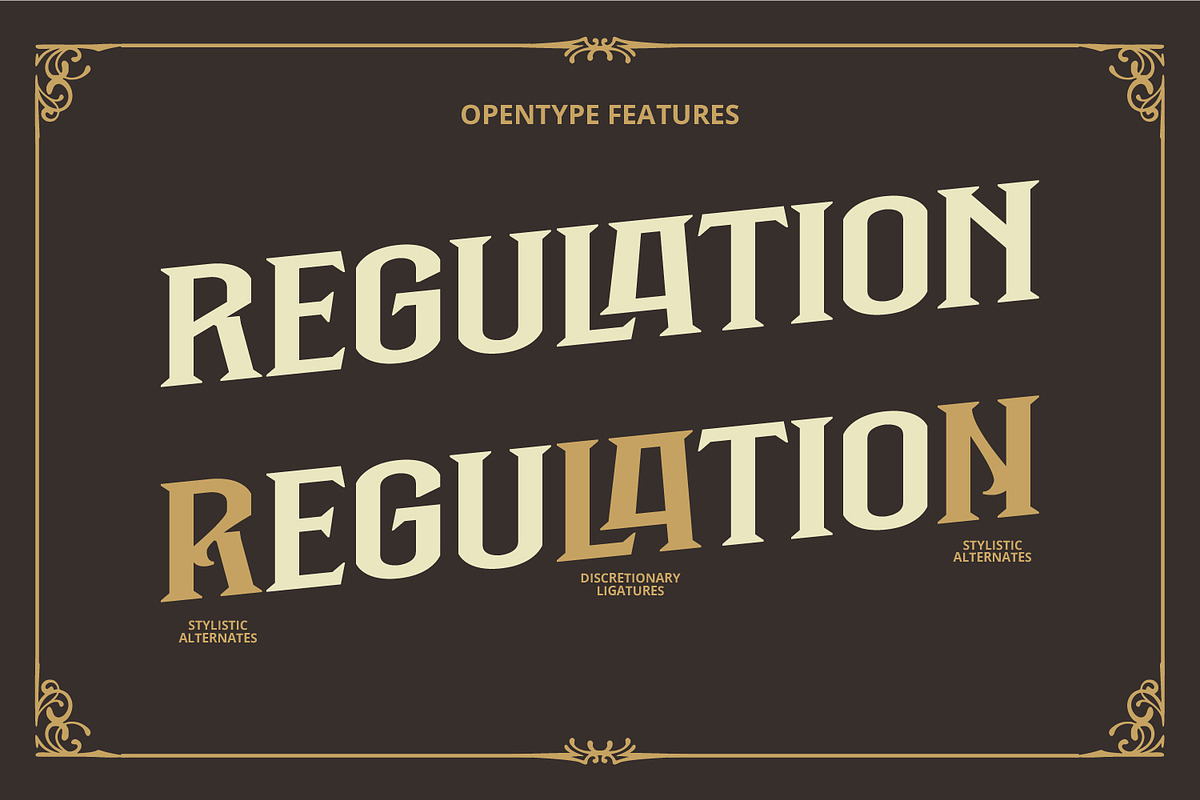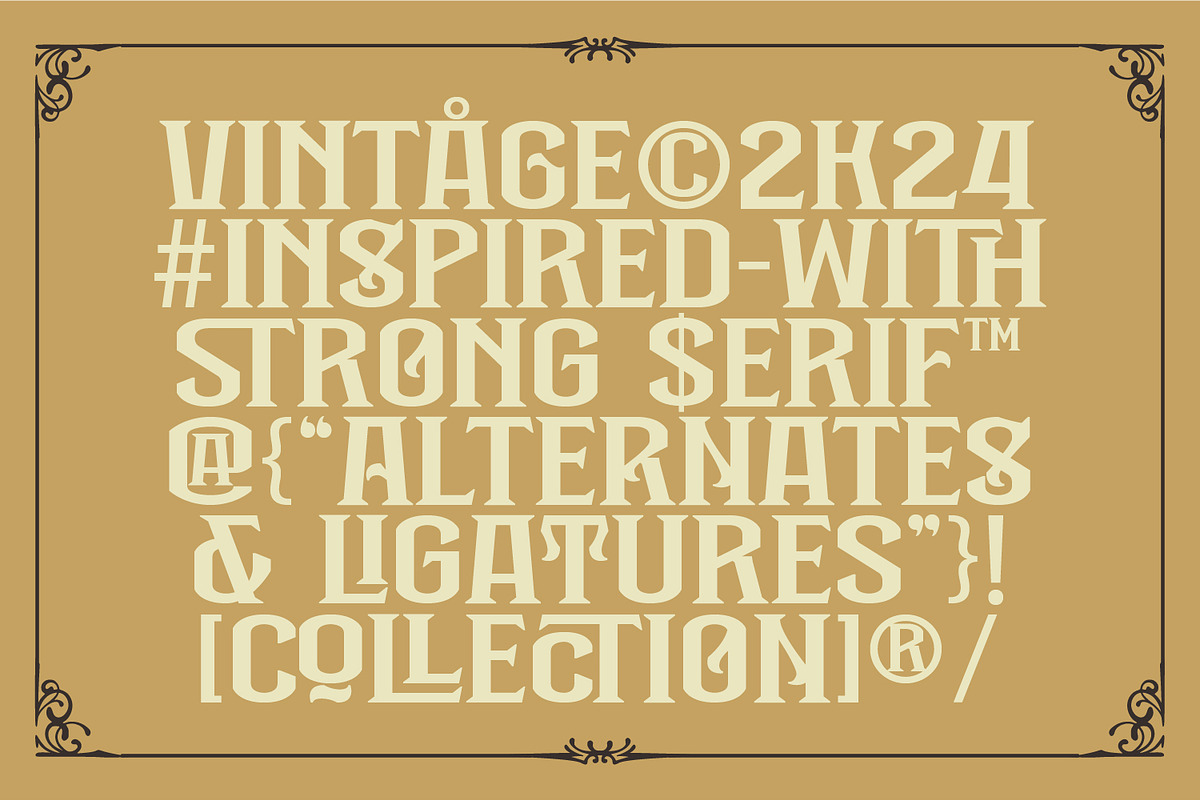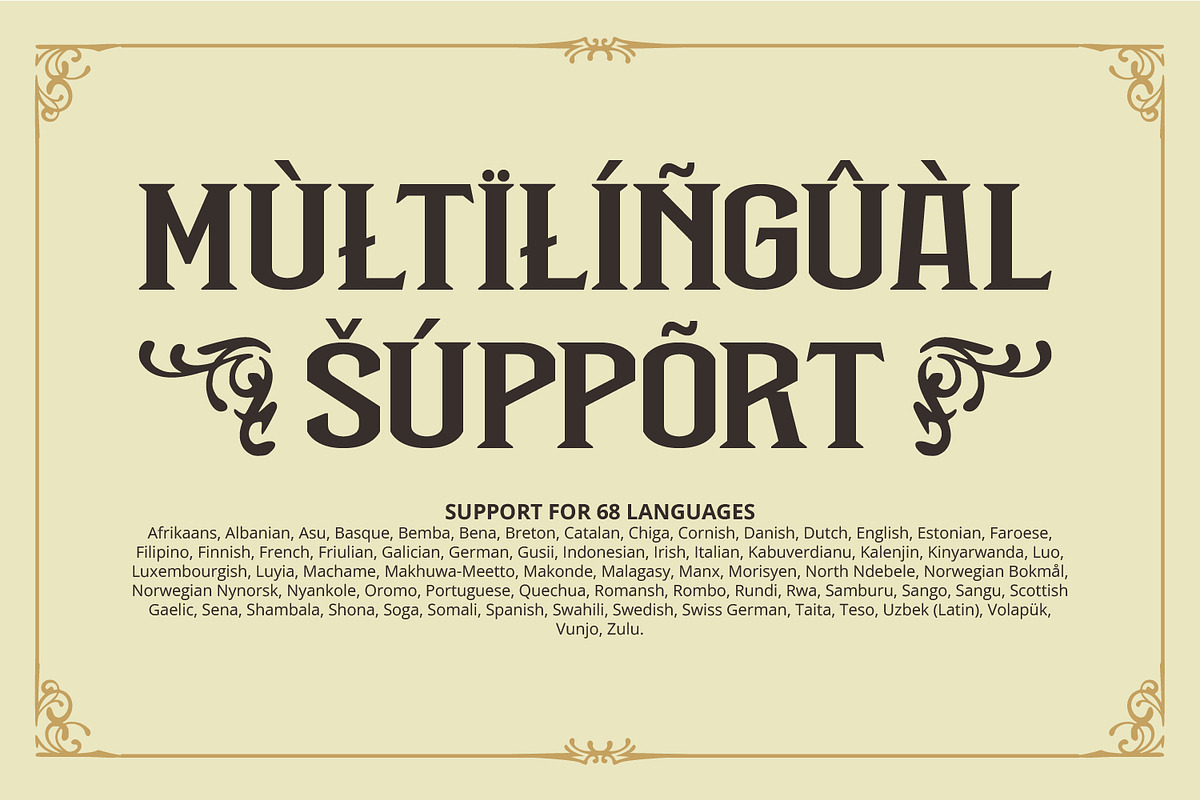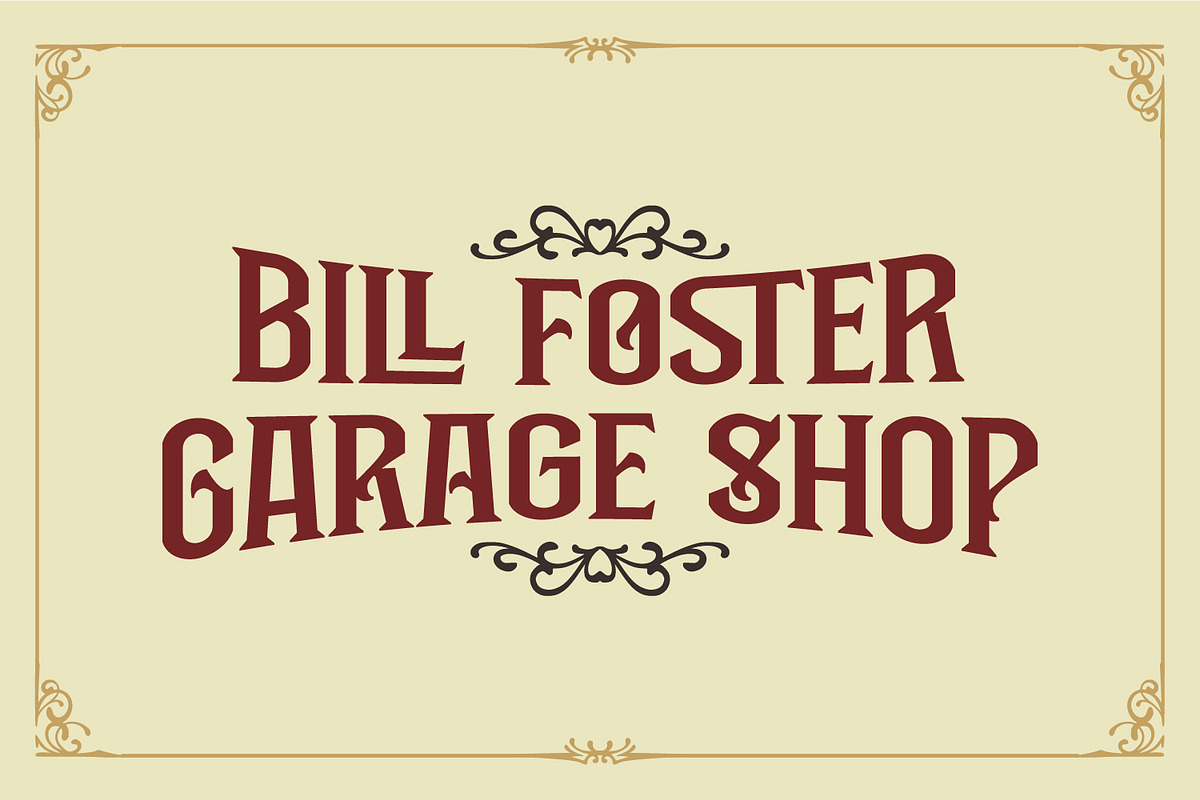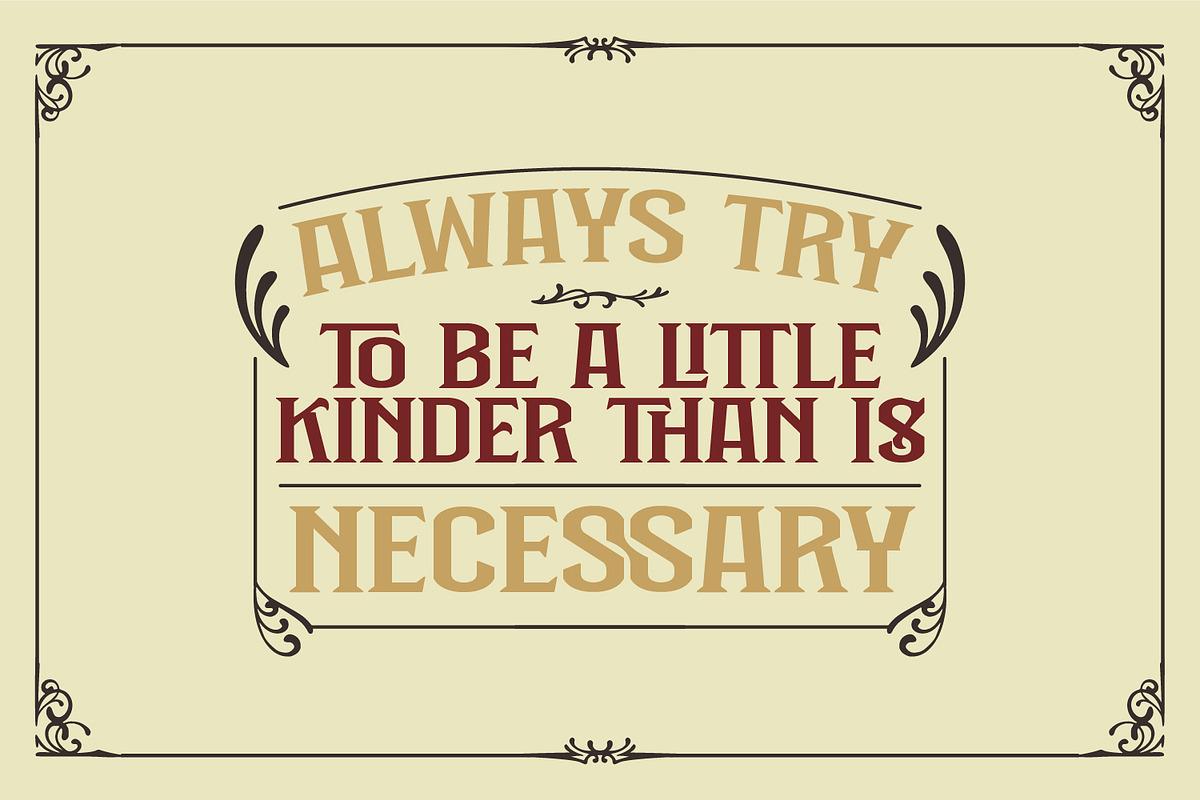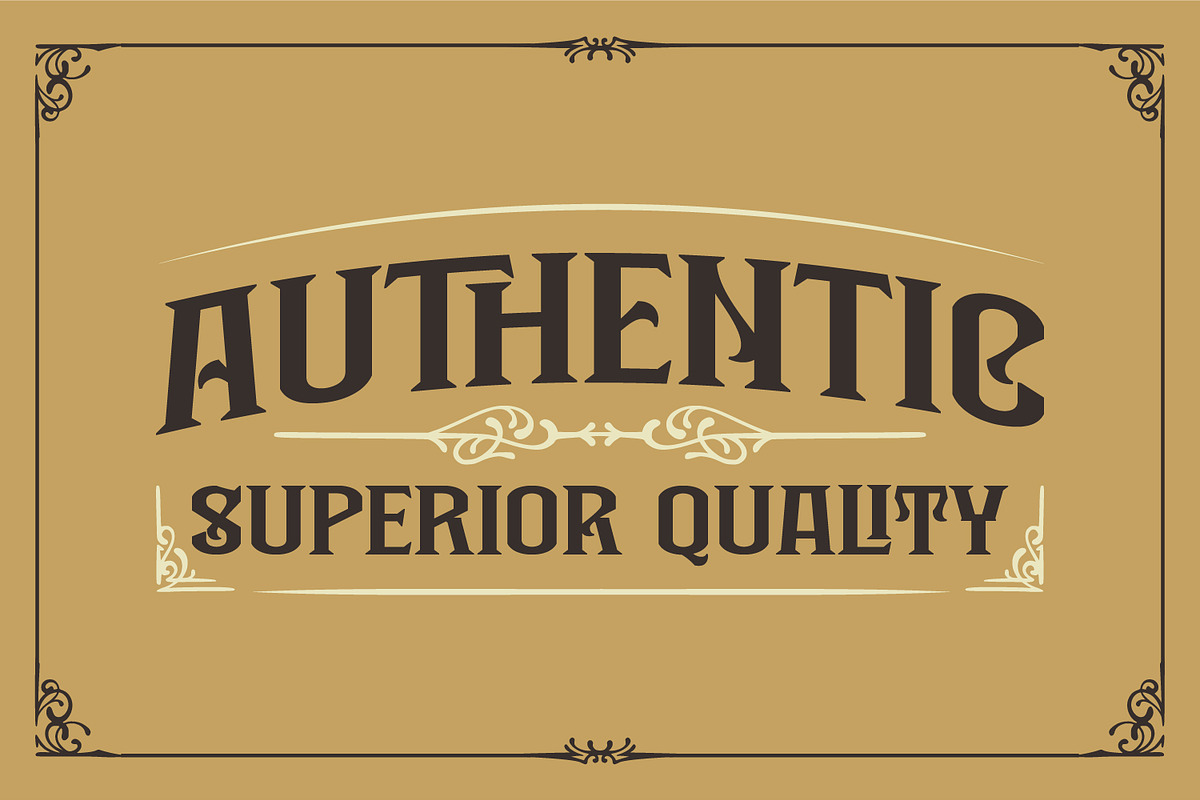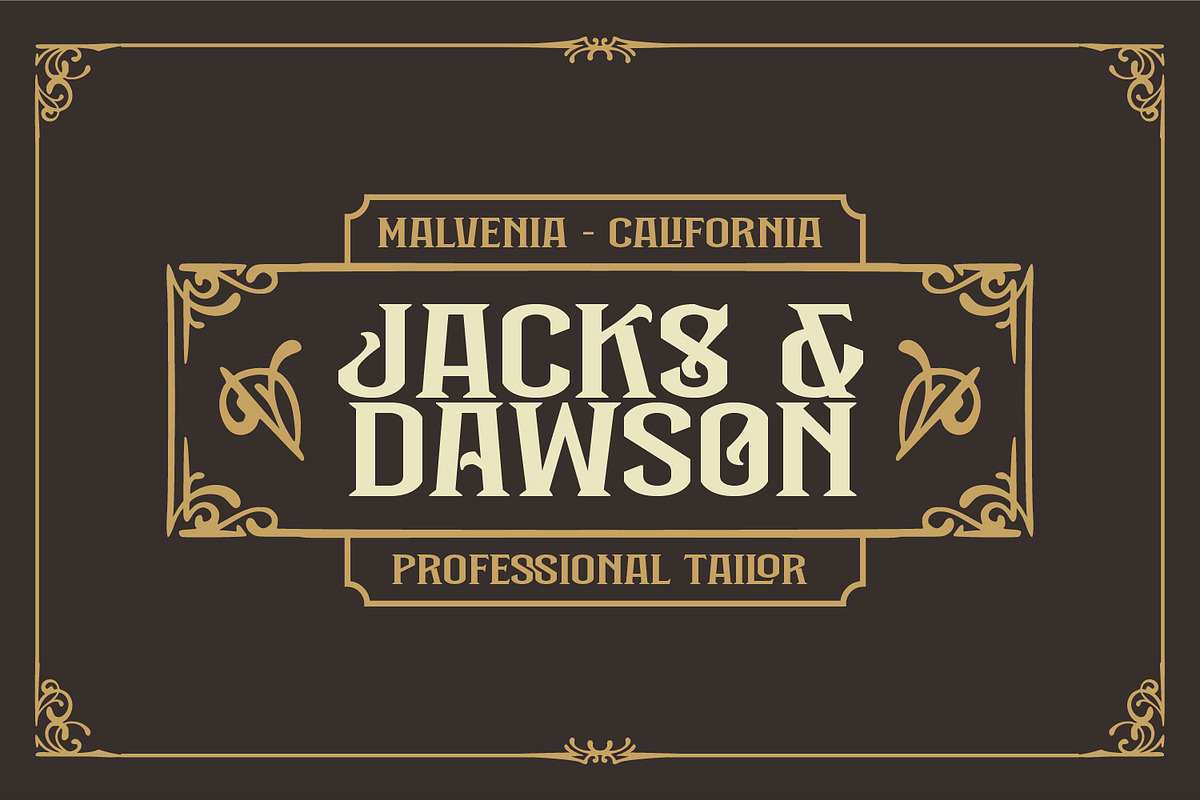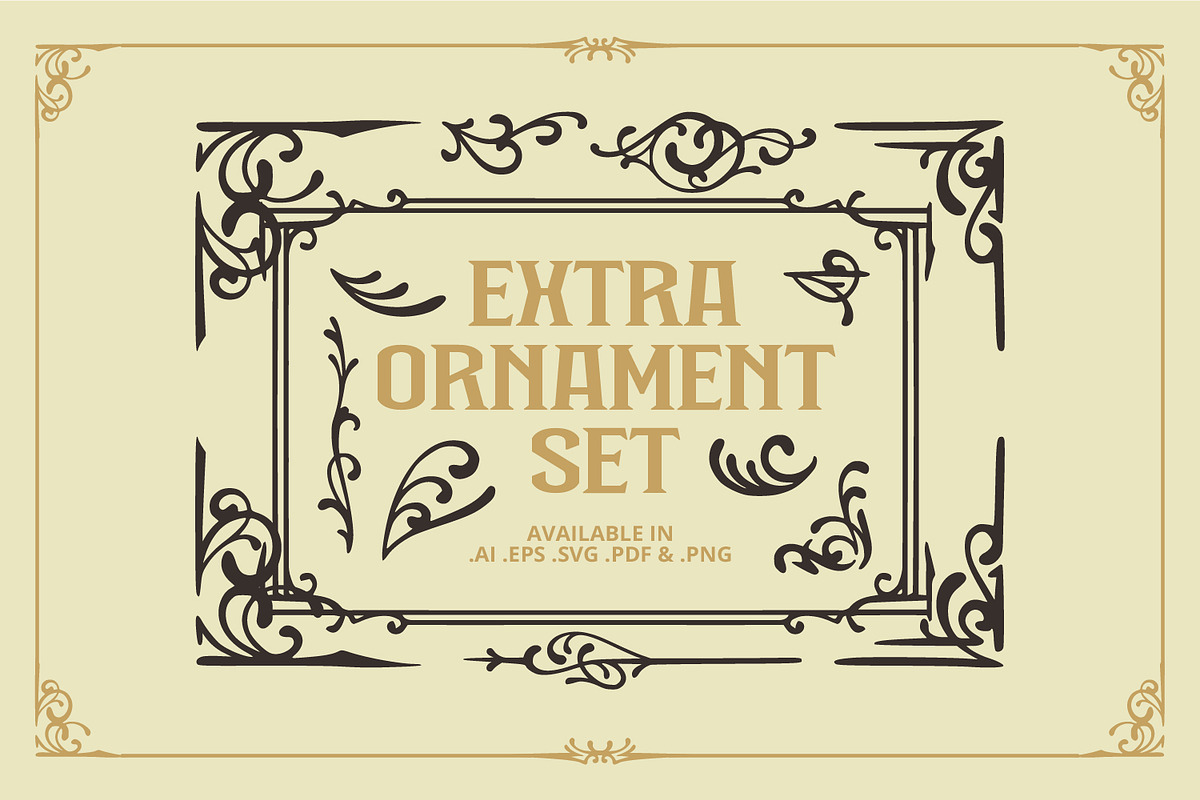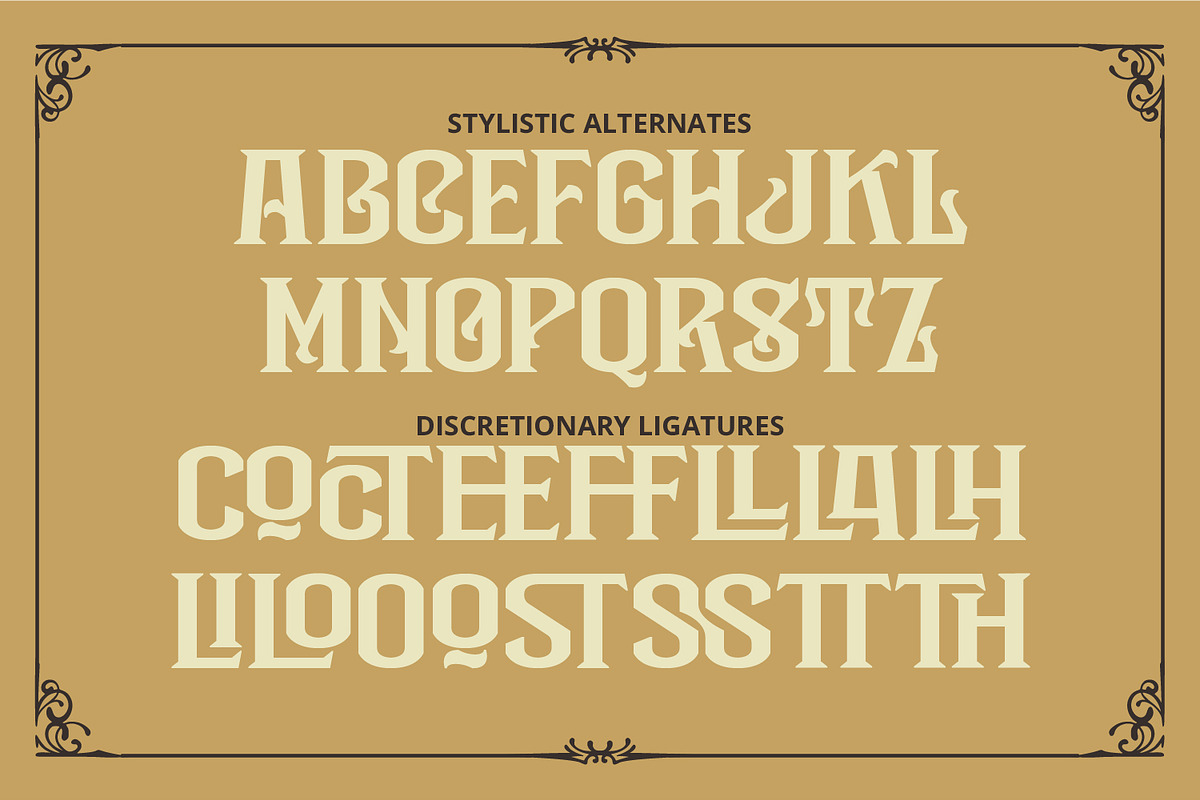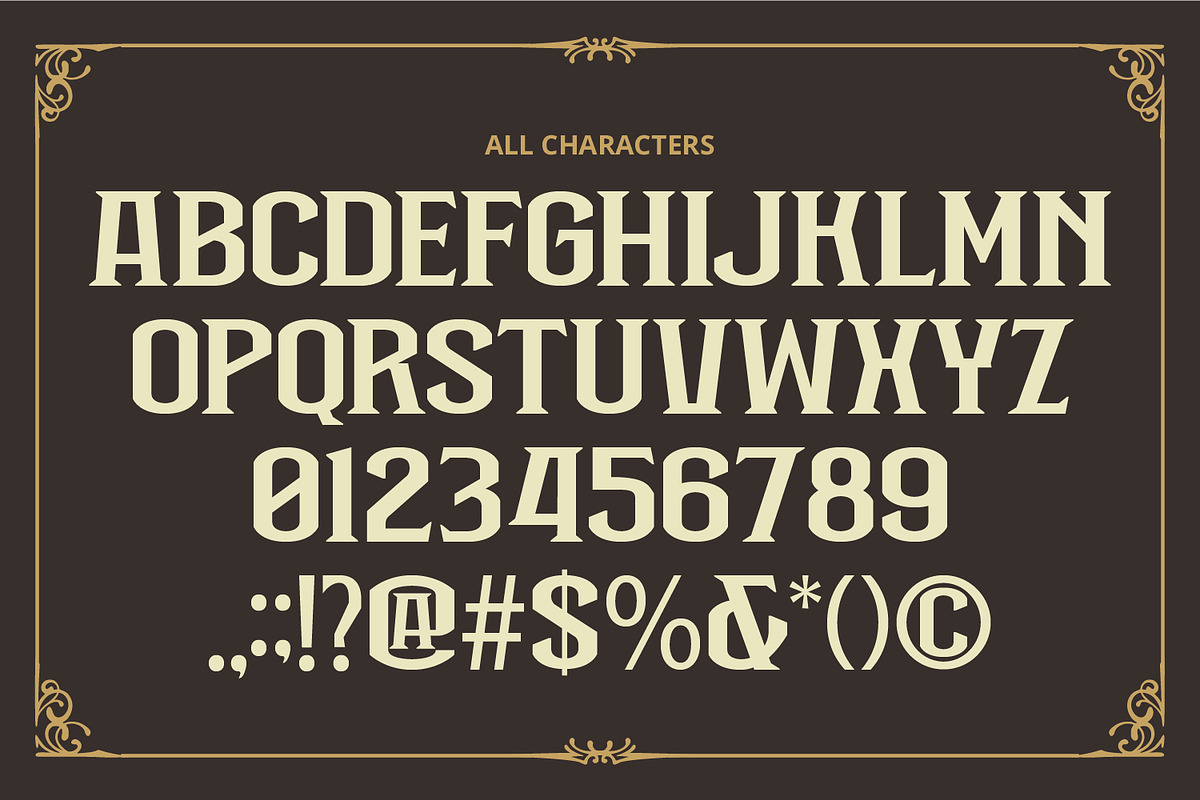
Black Holist
Introducing Black Holist, a bold and captivating display font that brings vintage charm to the forefront. Designed in all uppercase letters with a thick, sturdy weight, Black Holist offers both strength and style in perfect balance. Each letter is crafted with consistent proportions, ensuring excellent readability even at larger sizes. Whether you're aiming for a retro aesthetic or a timeless design, Black Holist adds an unmistakable vintage flair to any project. This font gives ornaments as extra. In addition, enjoy the features here.
Black Holist fits in headlines, logos, posters, branding materials, packaging, print media, editorial layouts, and many more designs. Find out more ways to use this font by taking a look at the font preview.